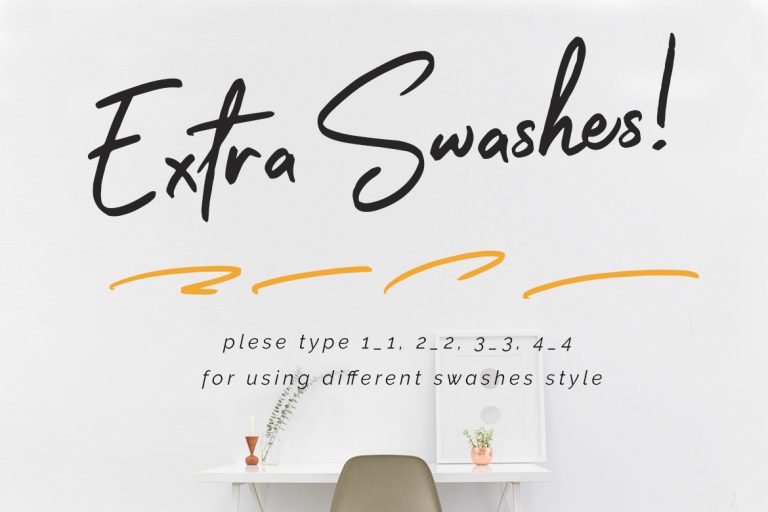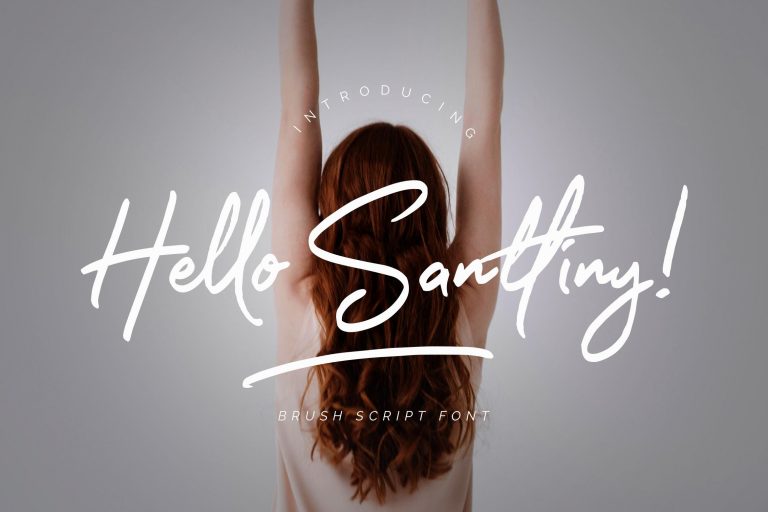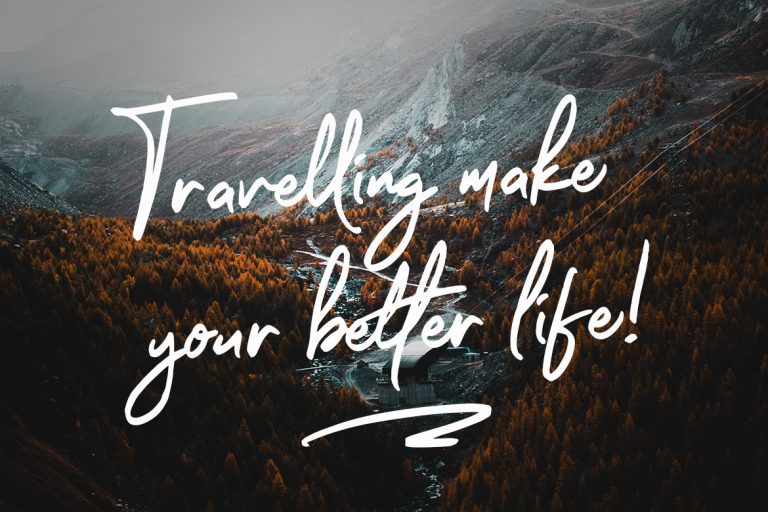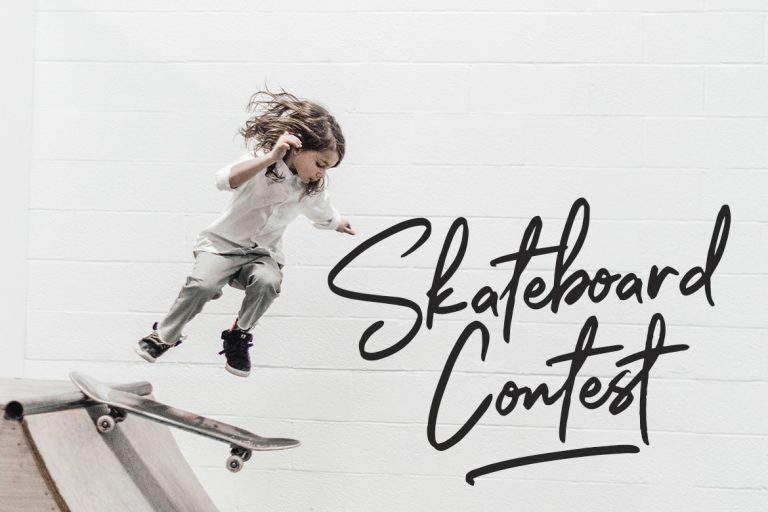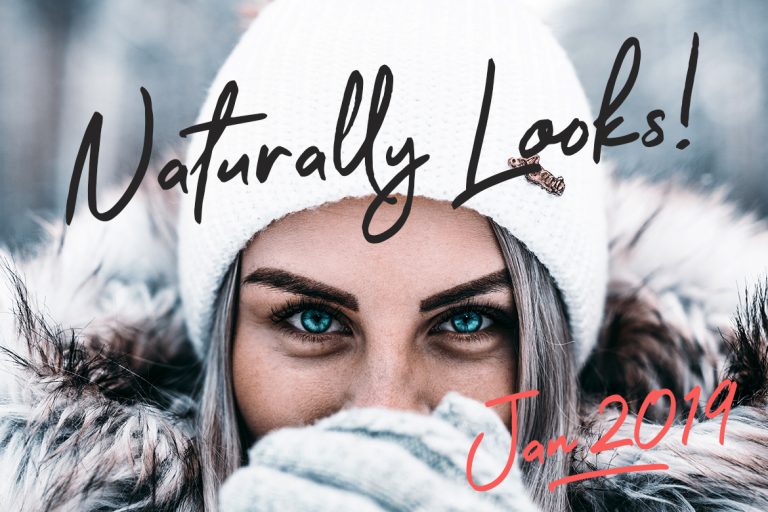
Hello Santtiny is a rough brush script font with a clear style and dramatic movement. This font is great for your next creative project.
Hello Santtiny is perfect for branding projects, logo, wedding designs, social media posts, advertisements, product packaging, product designs, label, photography, watermark, invitation, stationery and any projects that need handwriting taste.
- Fonts include multilingual support for; ä ö ü Ä Ö Ü ß ¿ ¡
Hello Santtiny Brush Script Font